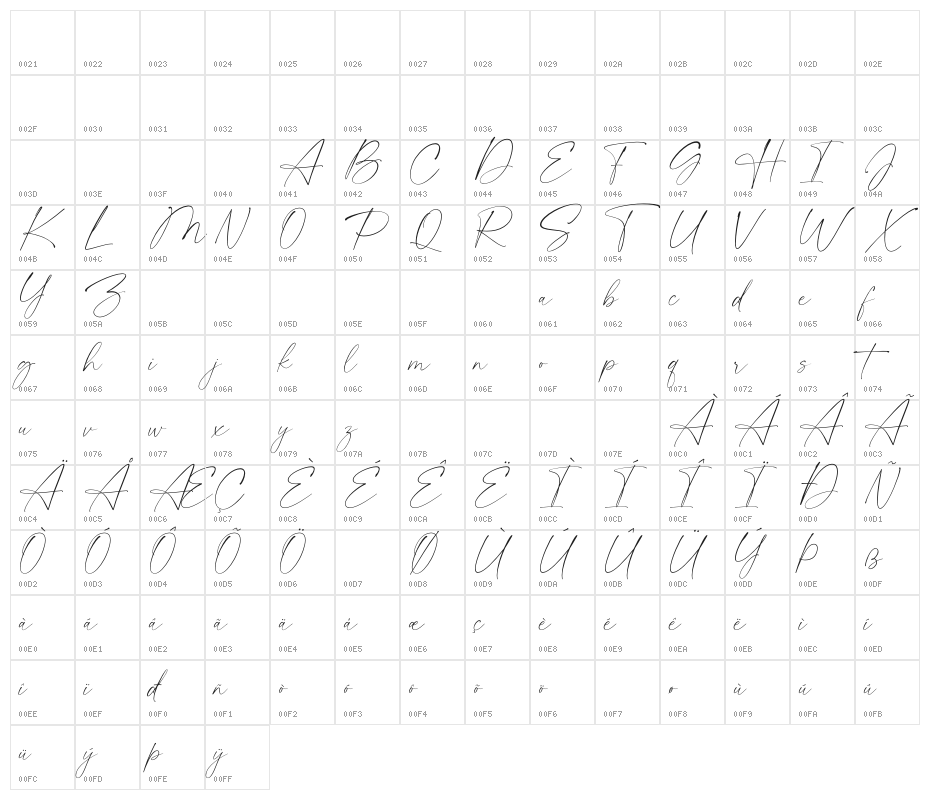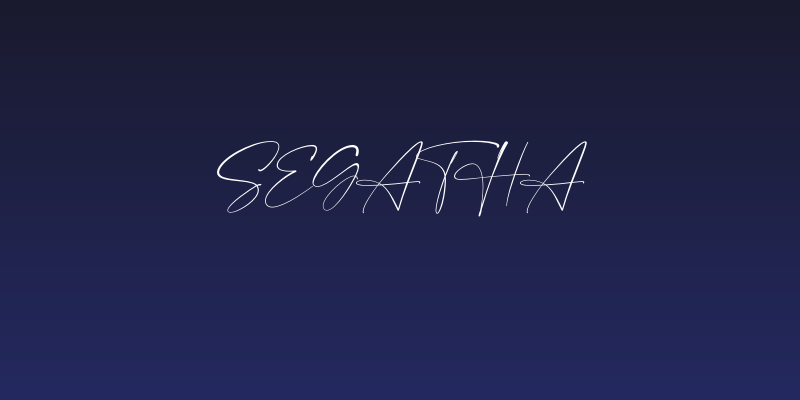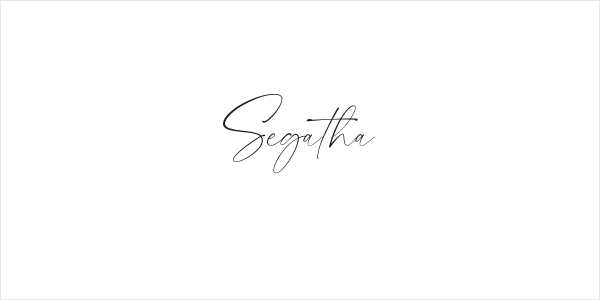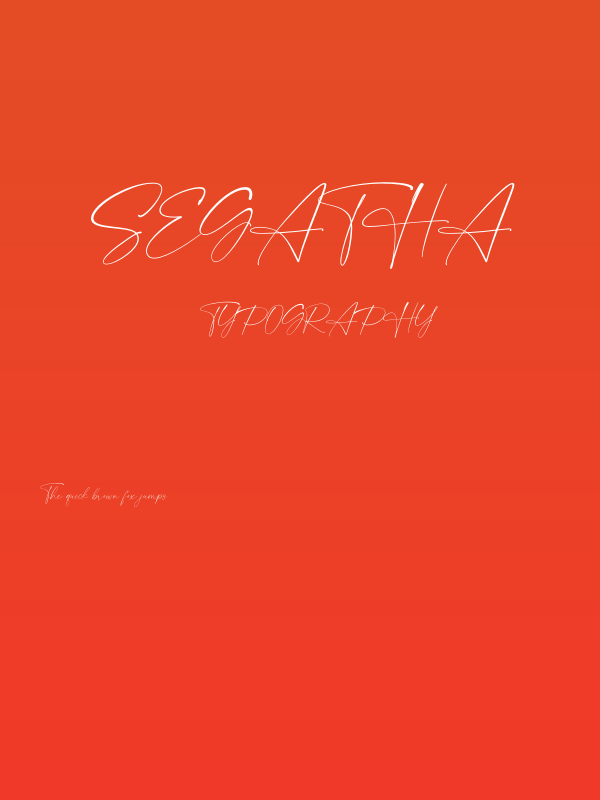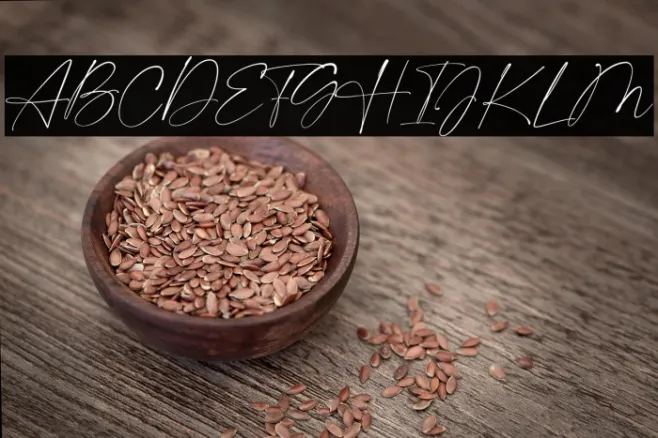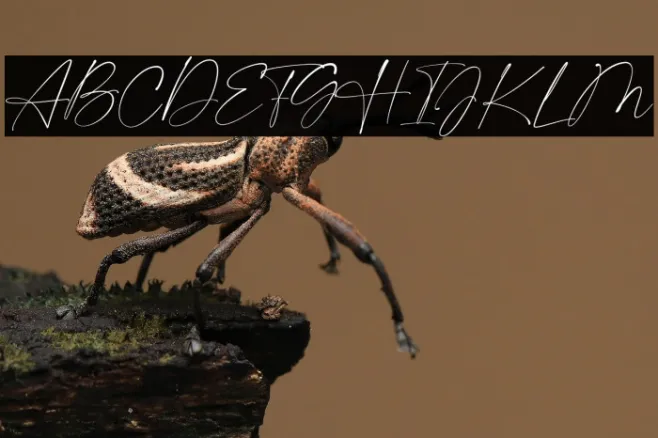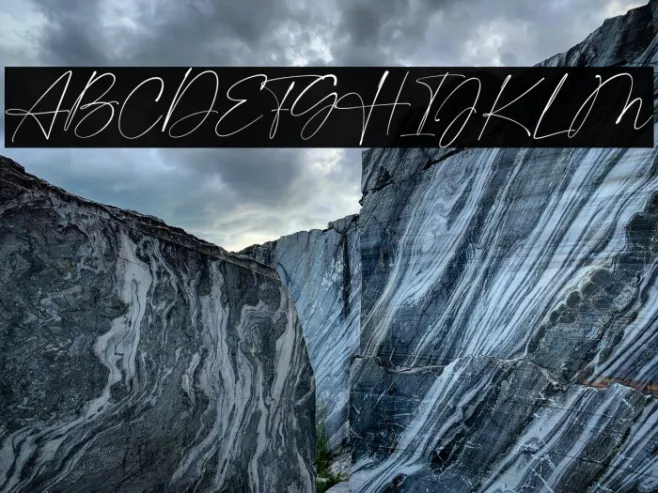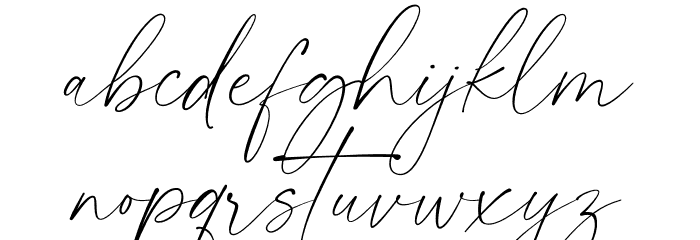
Segatha Font
Segatha Description
This font exudes elegance and sophistication with its fluid, cursive style. The letters are interconnected, creating a seamless flow that mimics natural handwriting. The strokes are thin and delicate, with a consistent slant that adds to its graceful appearance. The uppercase letters are slightly larger and more ornate, while the lowercase letters maintain a smooth and consistent form. The overall design is airy and light, making it perfect for adding a touch of class to any project.
| Proposed Projects | Ideal for wedding invitations, elegant branding, personal signatures, and decorative quotes. |